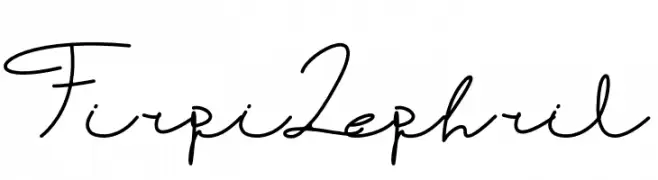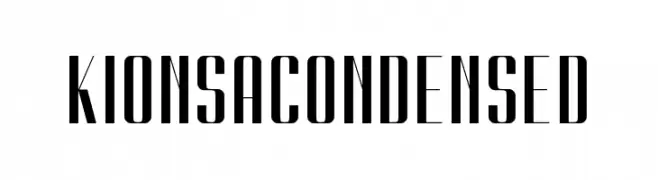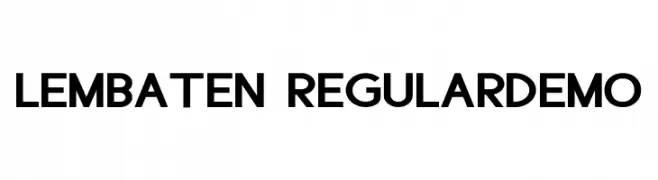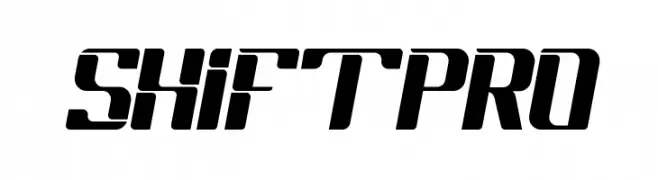
A modern, condensed font with high contrast and sleek, vertical design.
A playful and whimsical font with rounded, smooth letterforms and consistent stroke width.
A bold, angular font with a futuristic and dynamic style.
An elegant, cursive font with flowing, connected characters.
A bold, modern sans-serif font with clean, geometric lines.
A bold, geometric font with a three-dimensional outline effect.
A bold, futuristic font with geometric, inverse-style characters.
A bold, geometric font with a modern, industrial style.
An abstract, geometric font with a futuristic and symbolic design.
A bold, futuristic font with geometric, block-like characters.